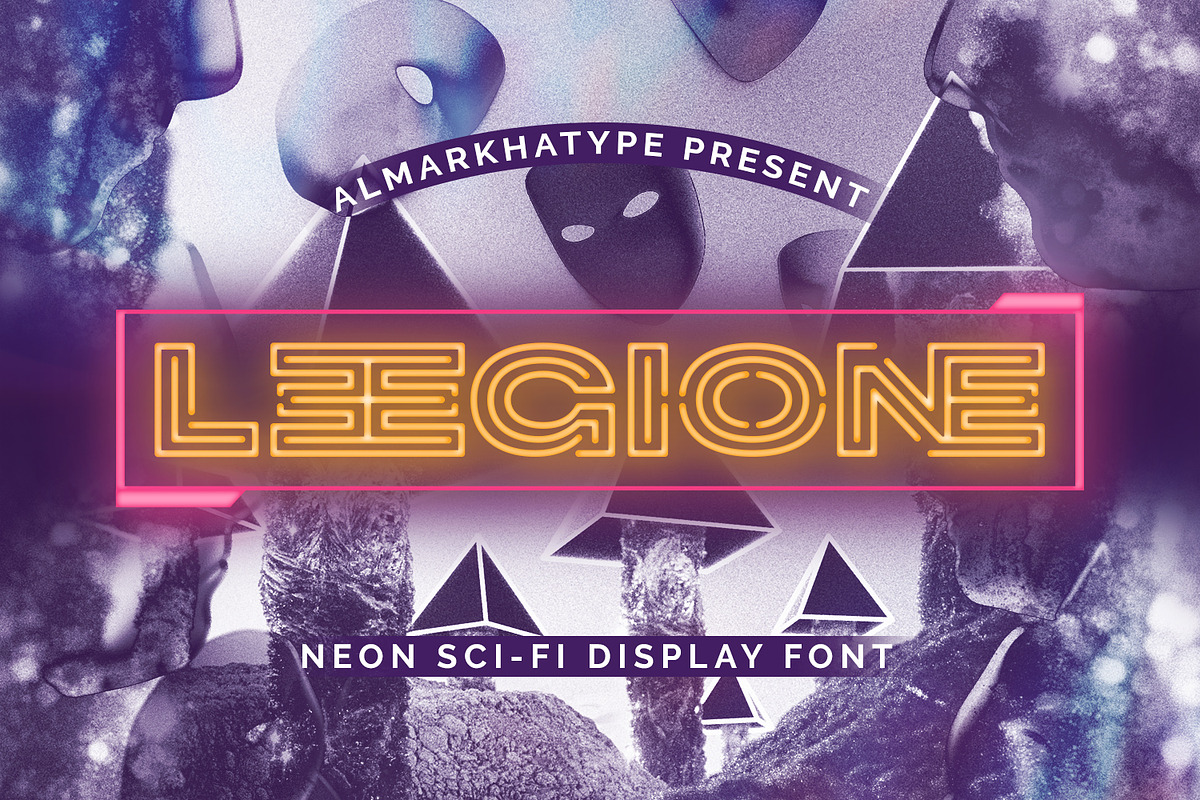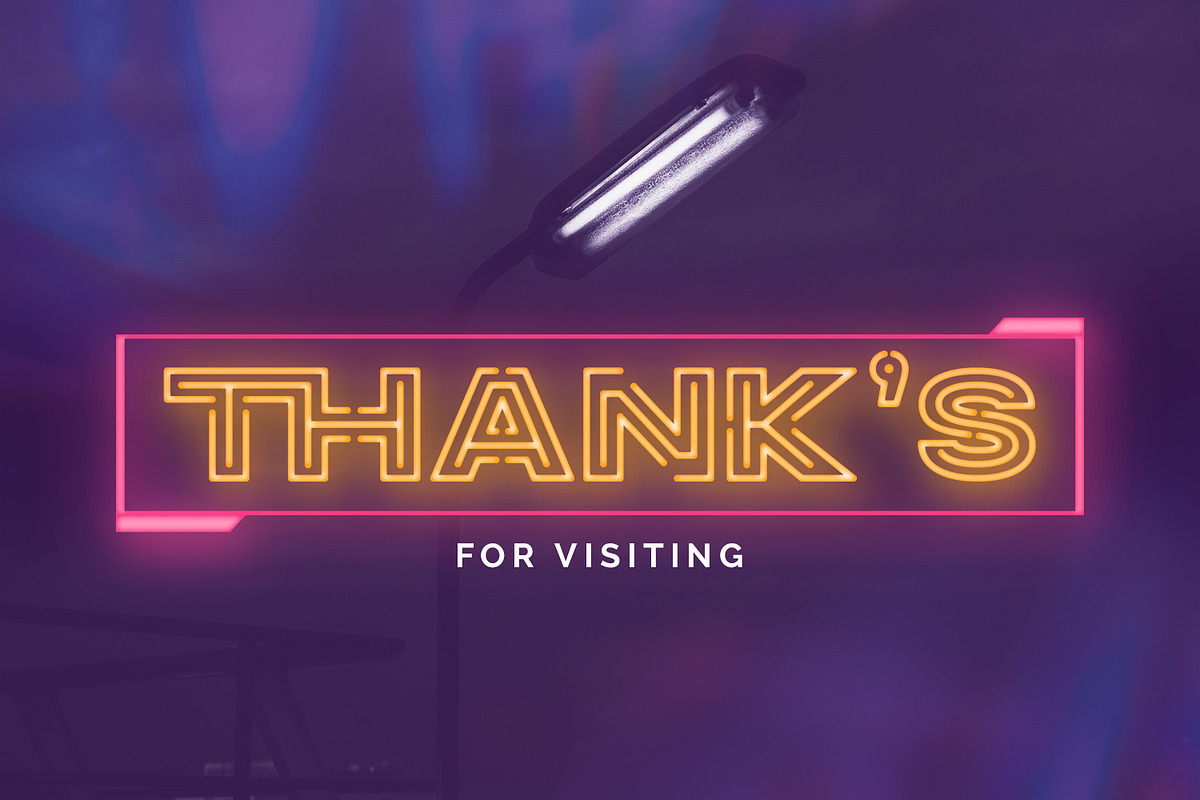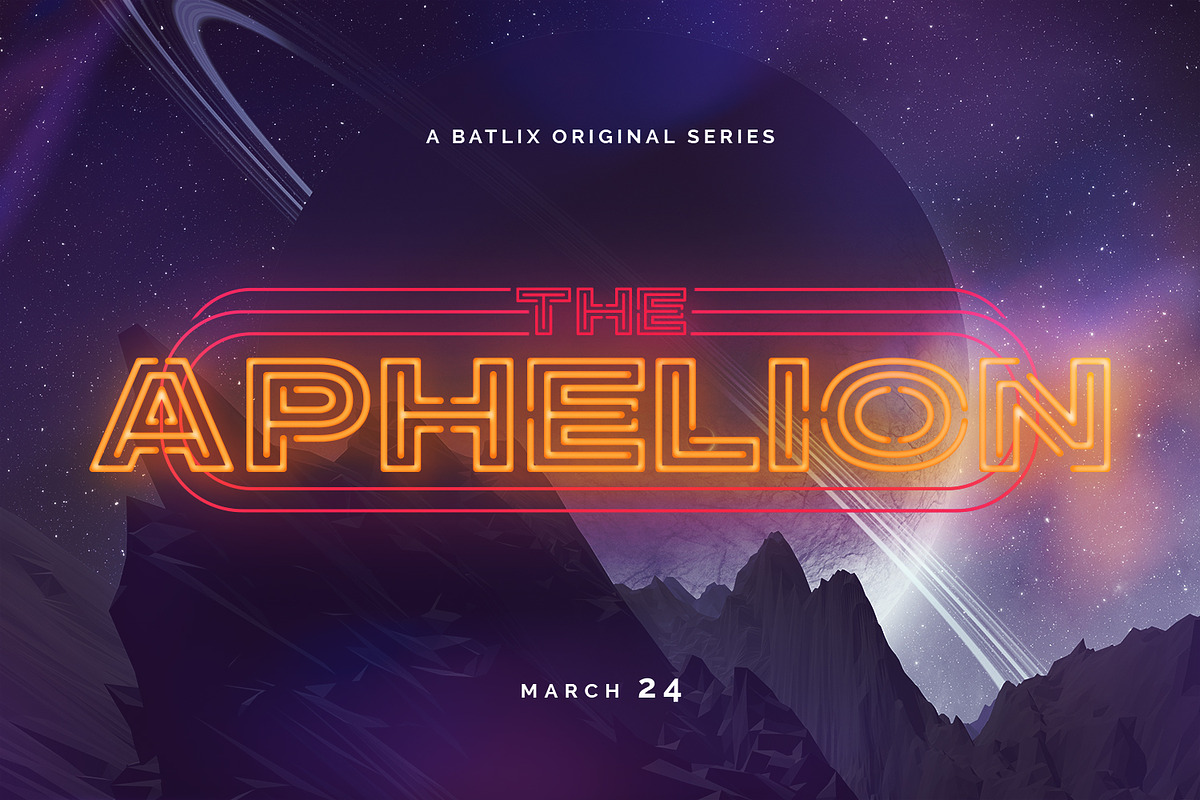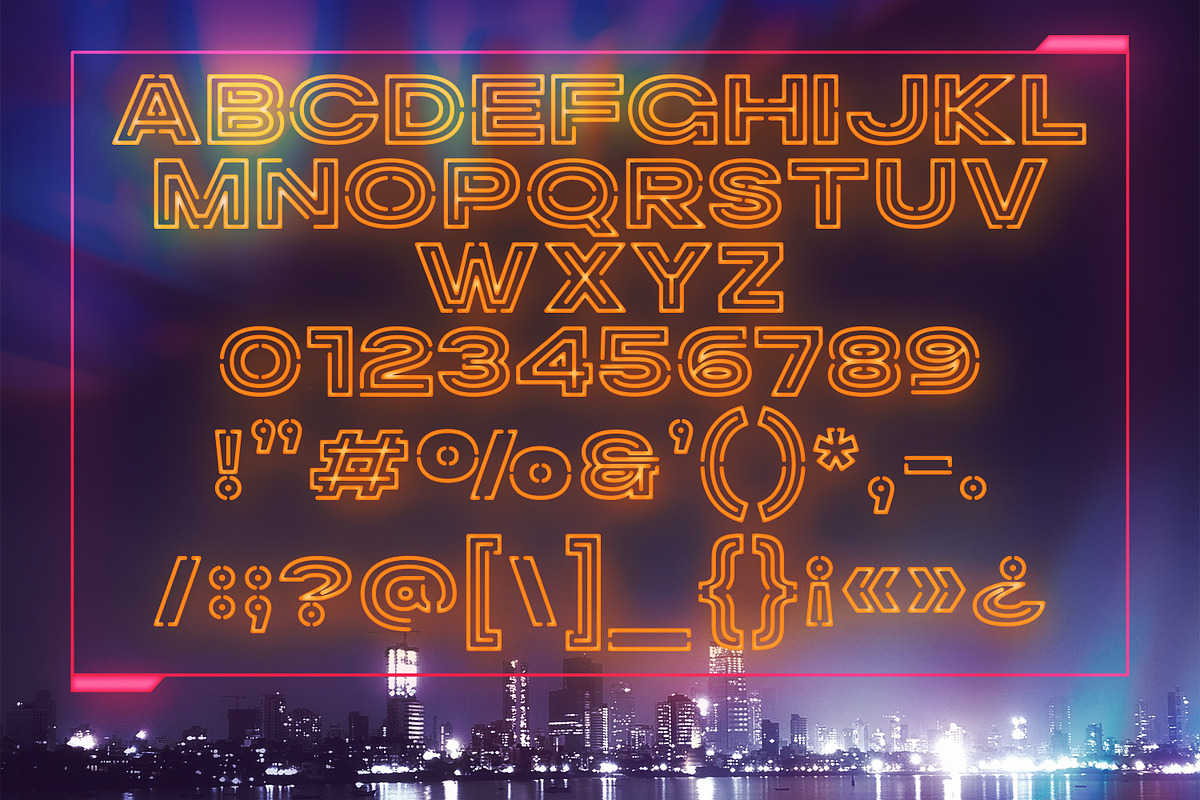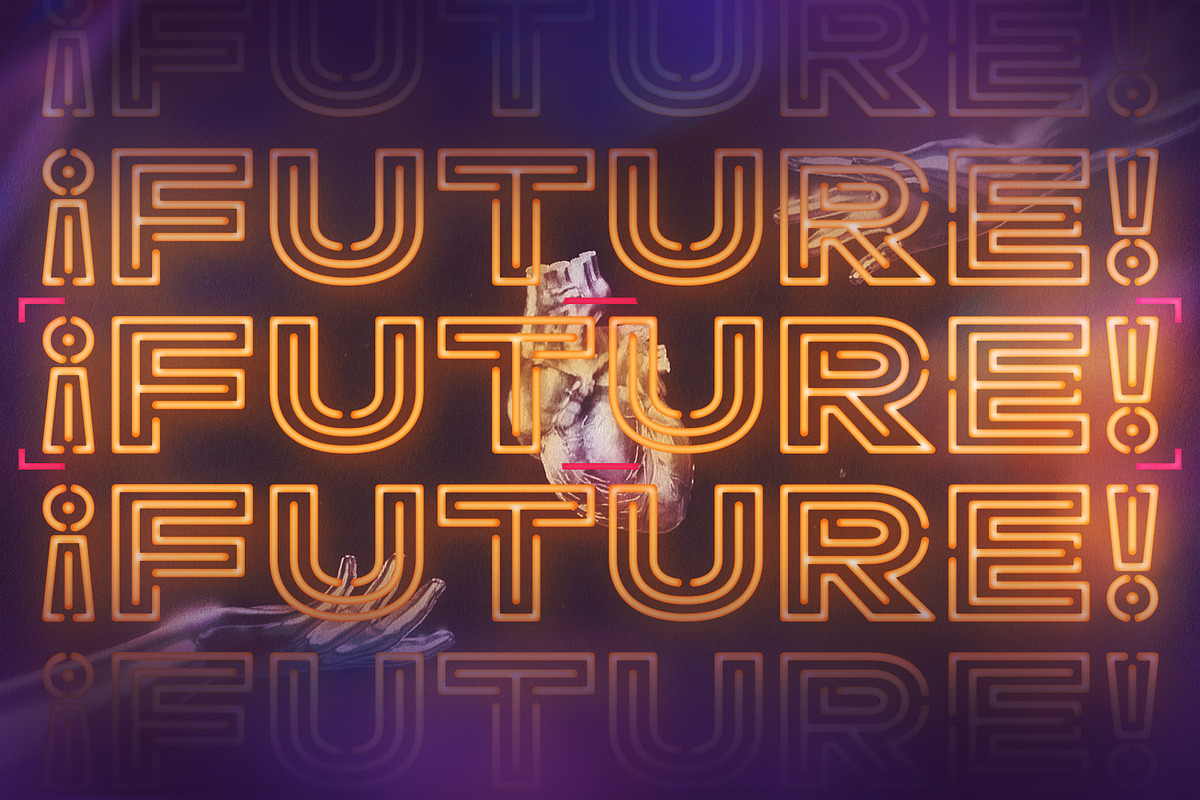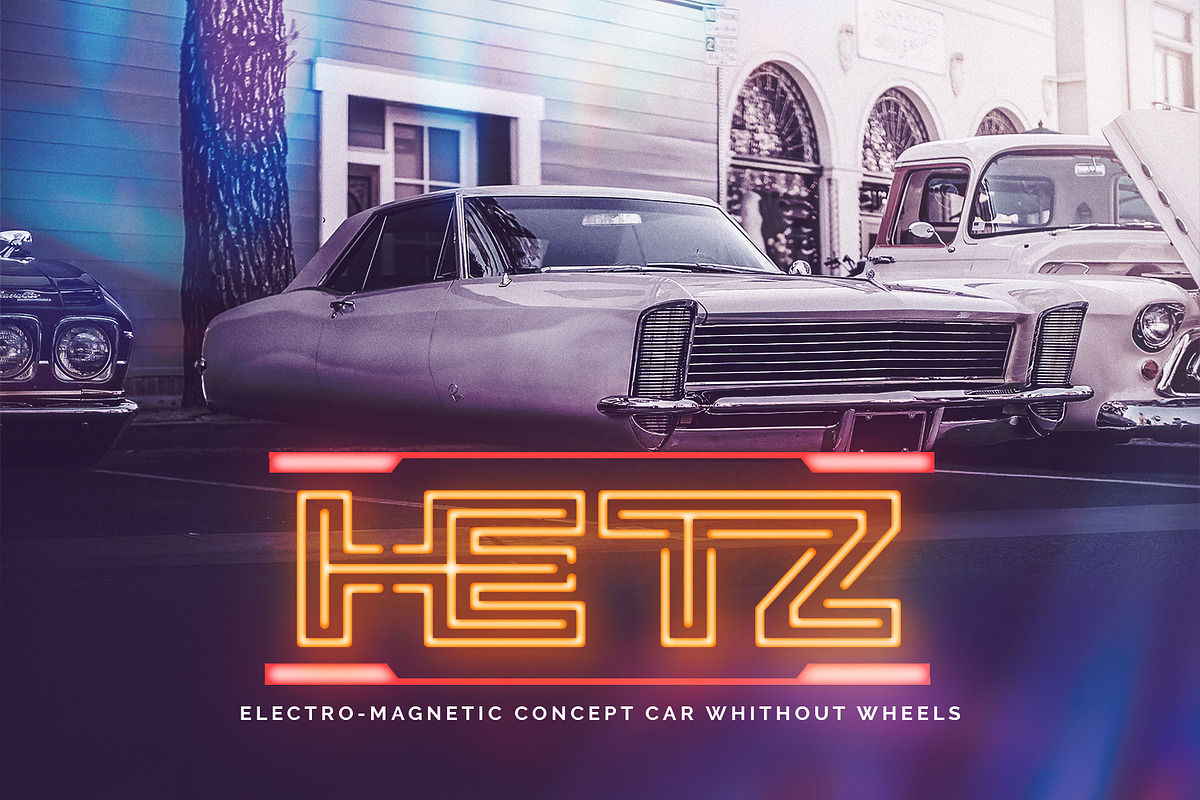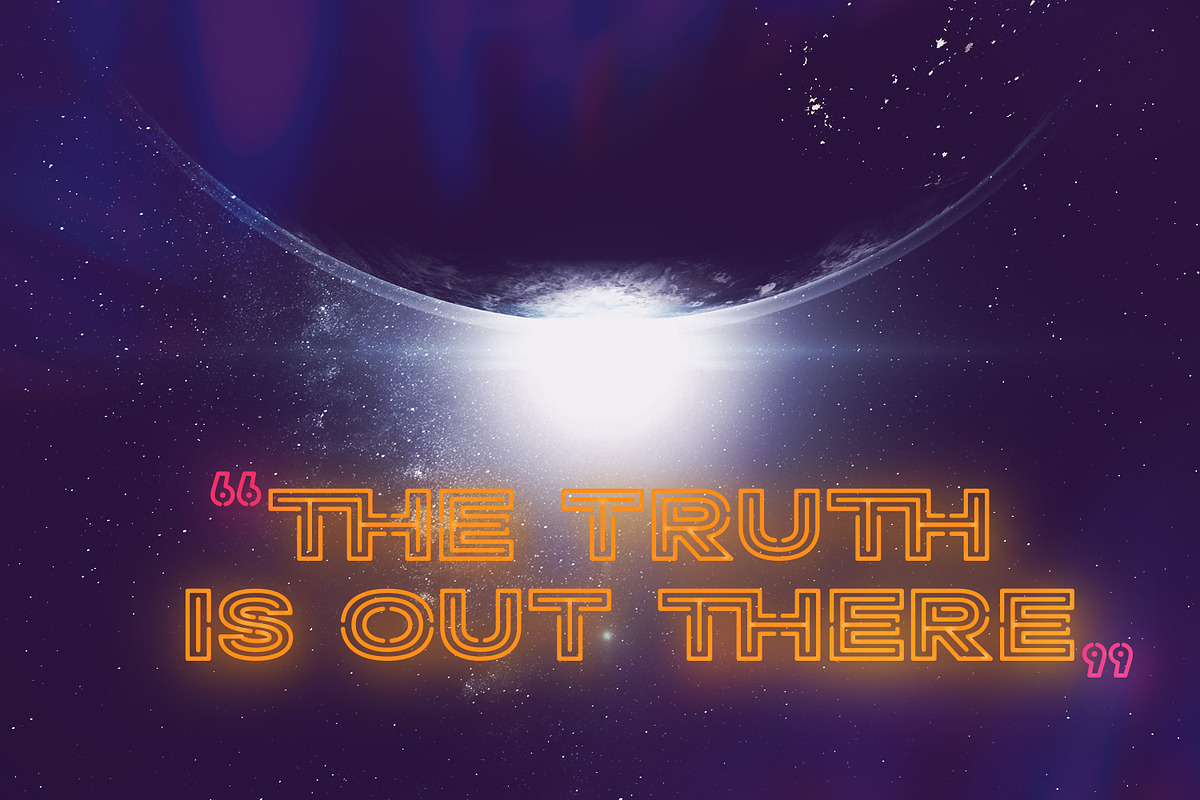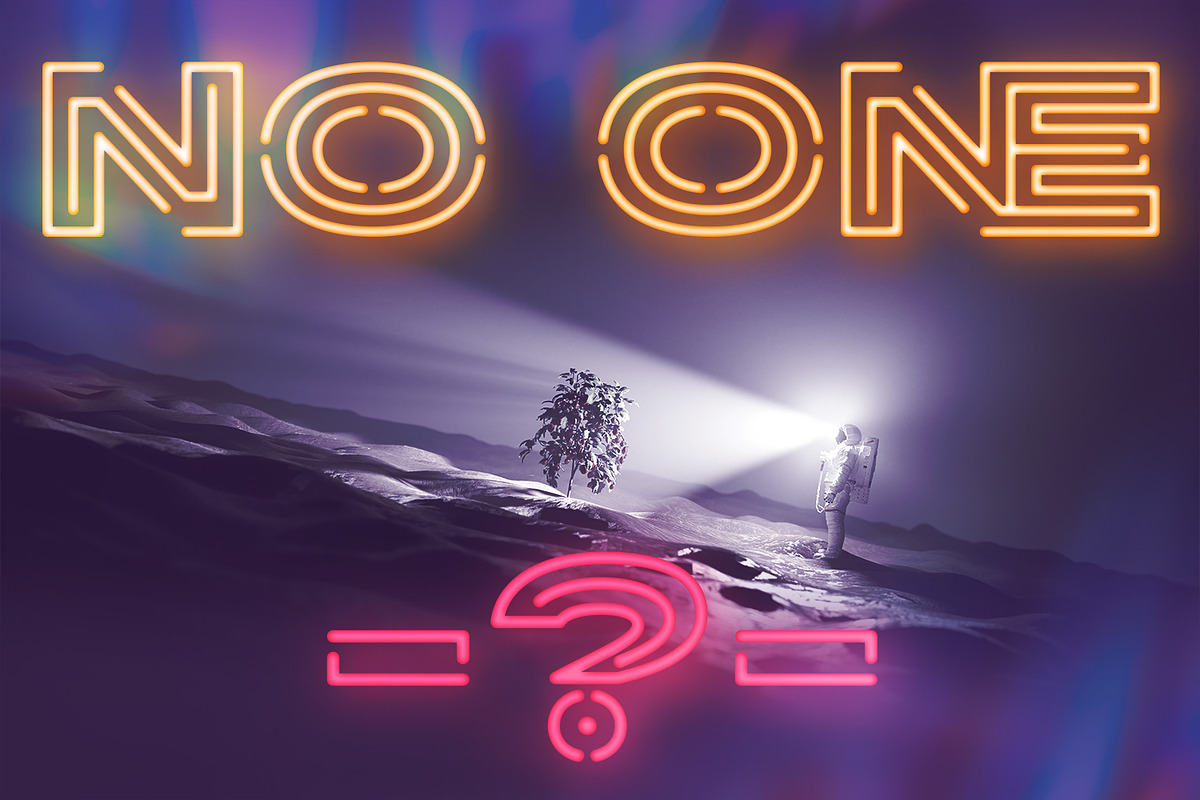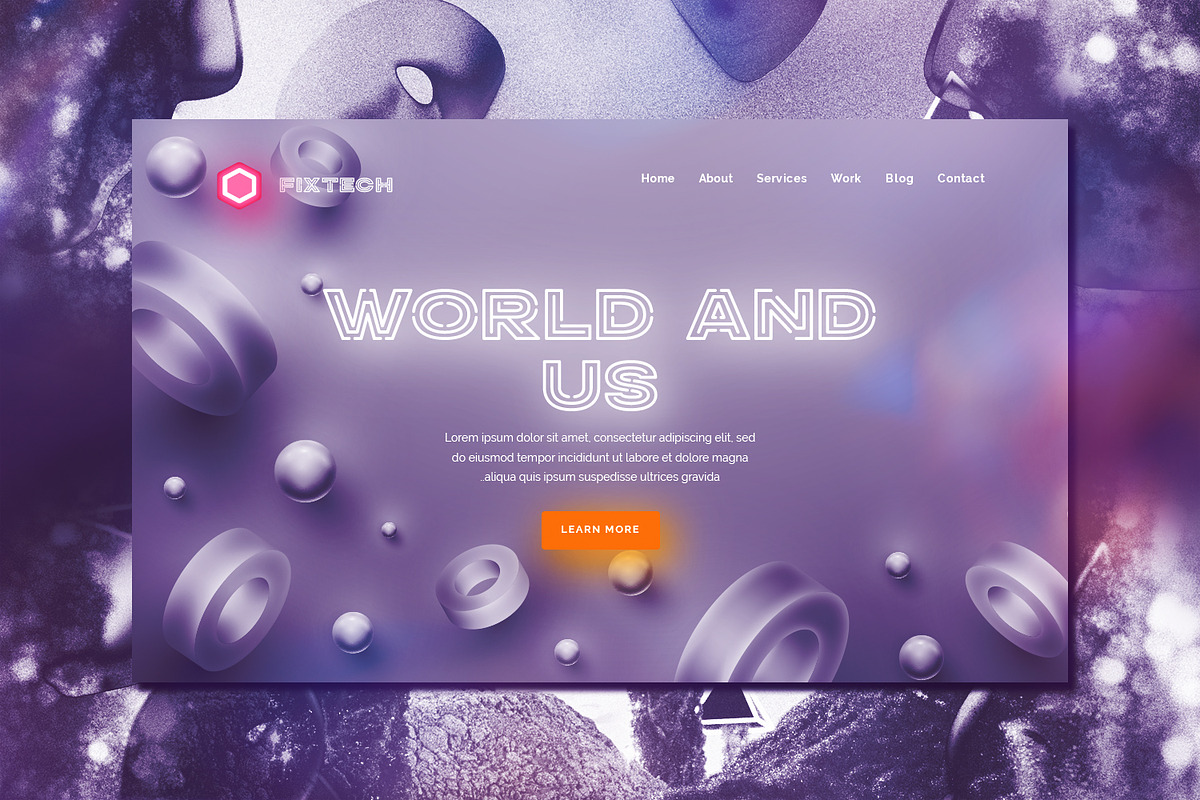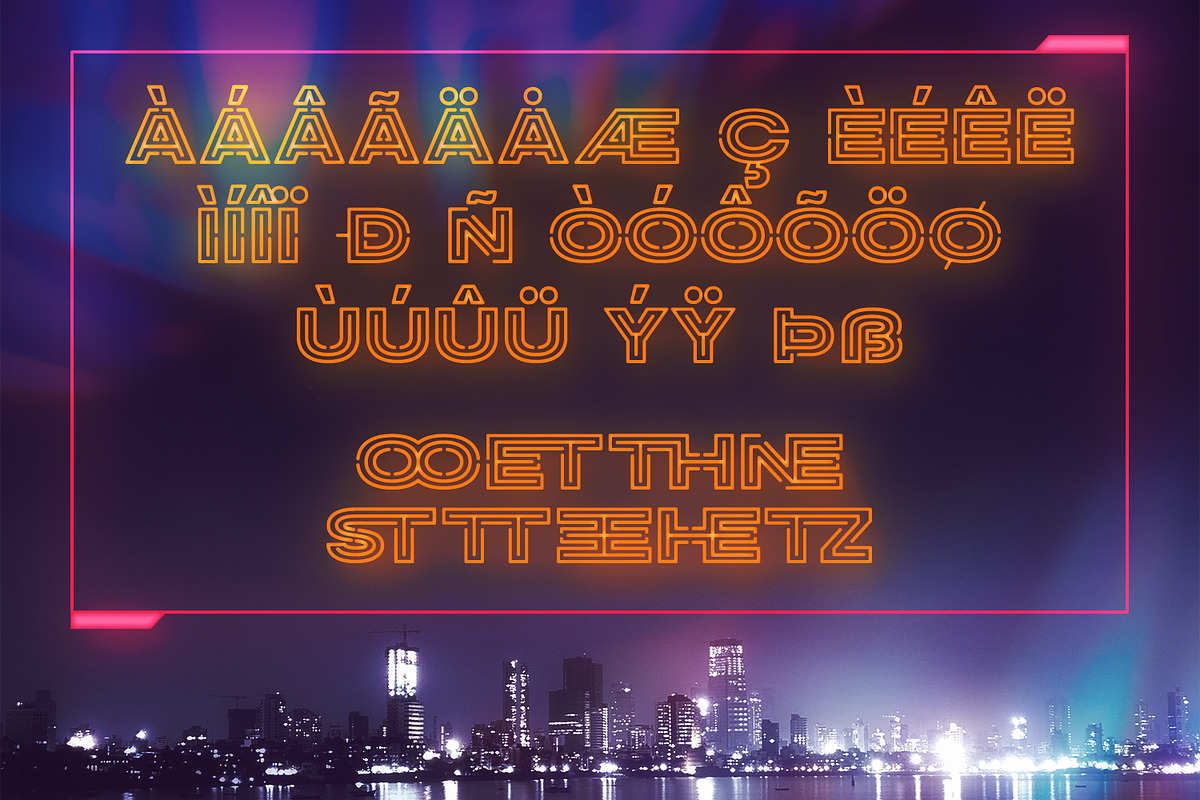
Leegione - Neon Sci-fi Futuristic
Introducing the Neon Sci-fi Futuristic Font called Leegione A unique font with a futuristic style can make your futuristic logotype more interesting. Inspired by real world neon light signs, this font is perfect for adding your own glowing light effects or can be used to actually design real world neon signs. Leegione fonts with 9 unique ligatures are ideal for your project and will allow you to create beautiful designs, headlines, posters, logos, badges, and much more. It is also best used for posts, logos, posters, labels, and more.